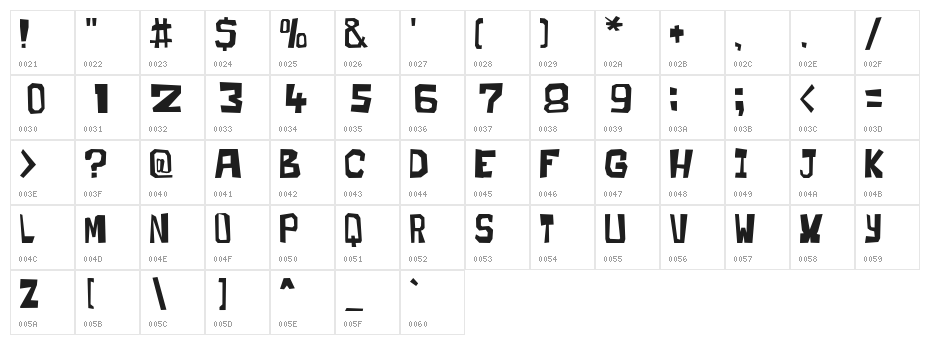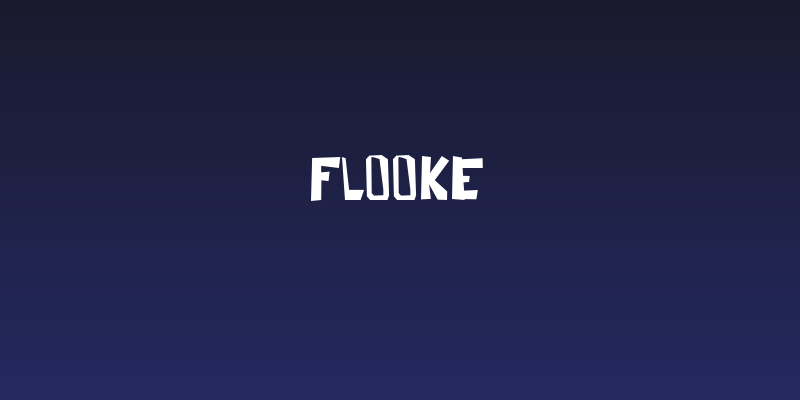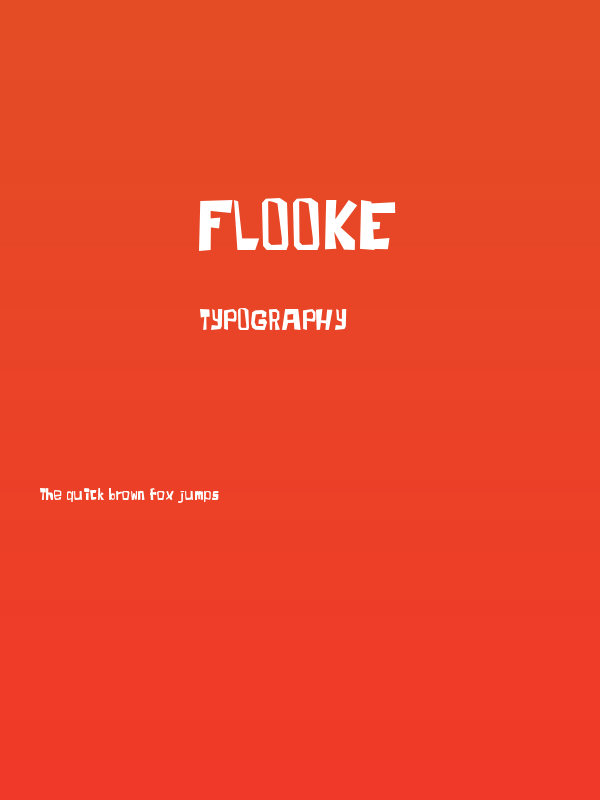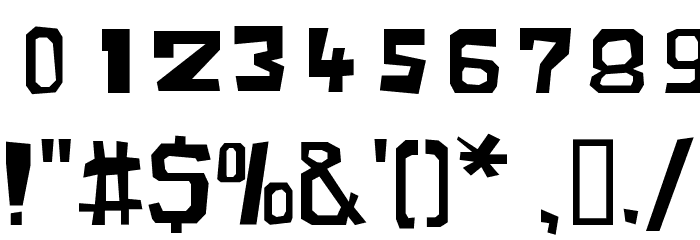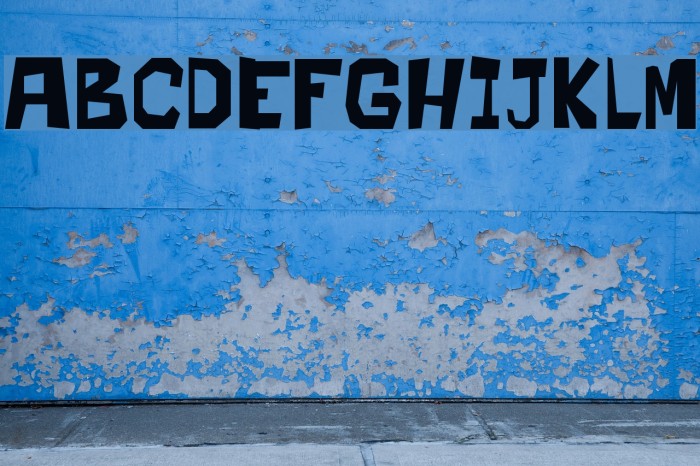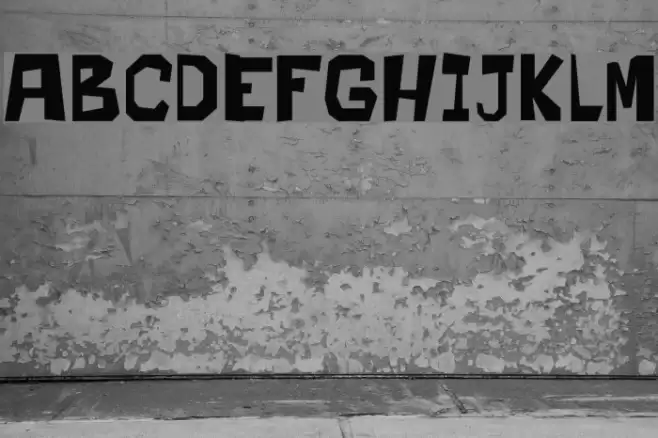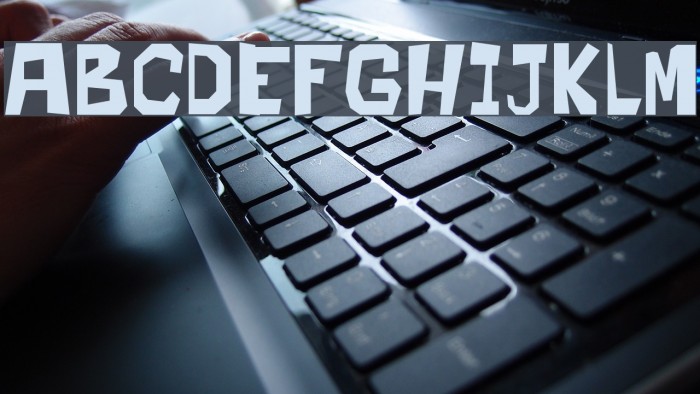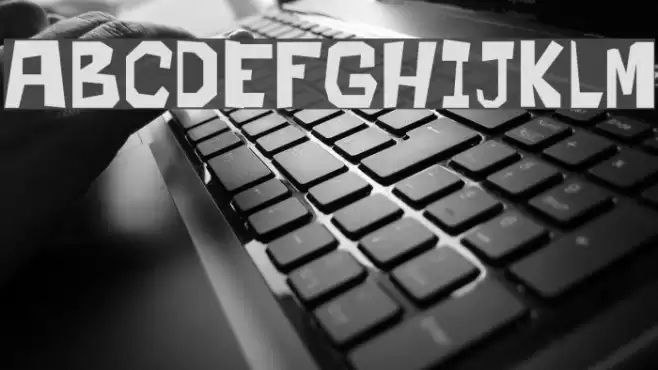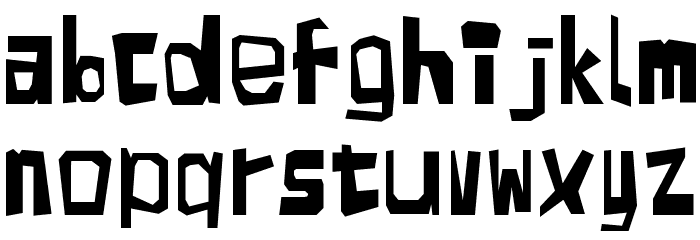
Flooke Font
Flooke Description
This font features a bold and edgy design with irregular, angular shapes that give it a dynamic and energetic appearance. The characters are uniquely crafted with sharp edges and varying widths, creating a sense of movement and unpredictability. The uppercase and lowercase letters maintain a consistent style, while the numbers and special characters are designed to complement the overall aesthetic. This font stands out with its distinctive, almost hand-cut look, making it ideal for projects that require a bold statement.